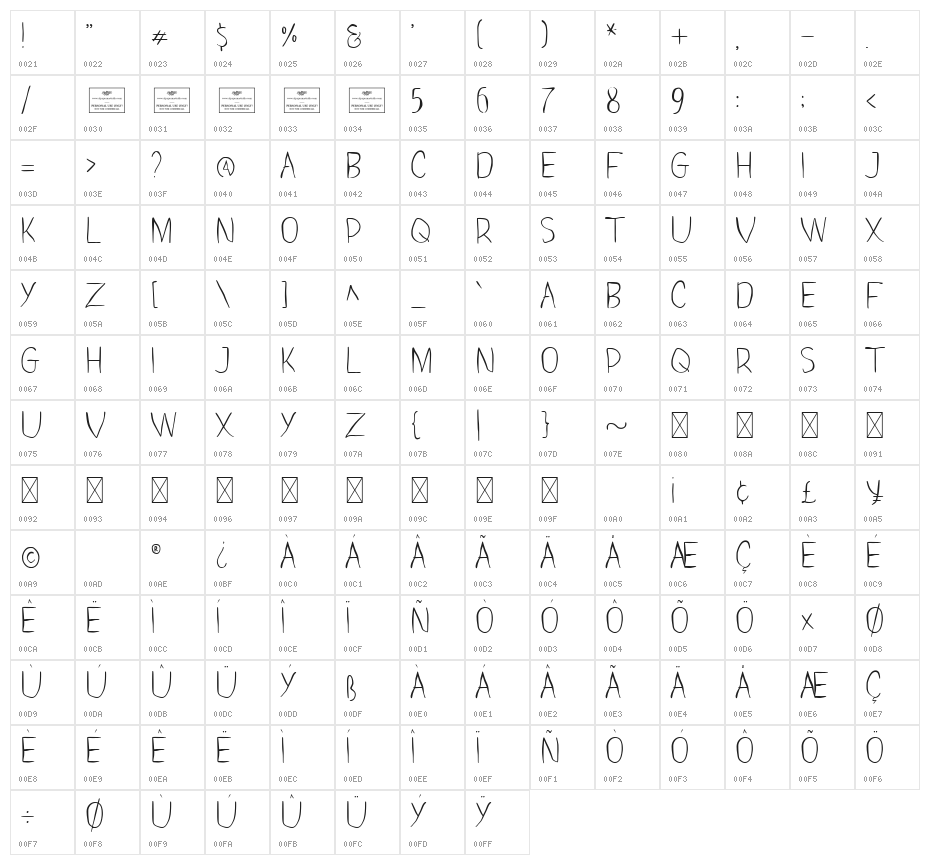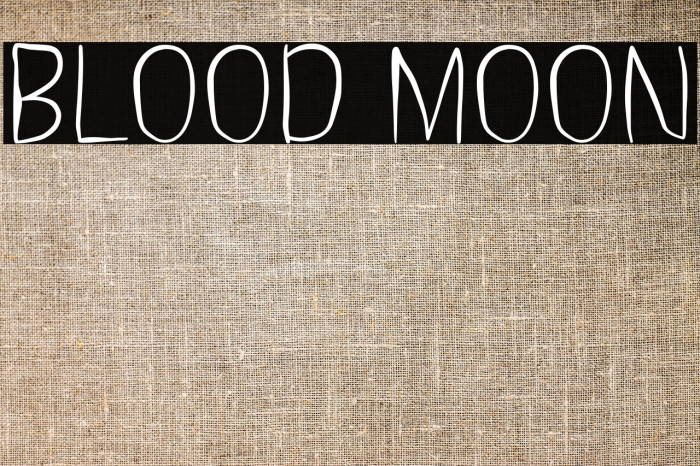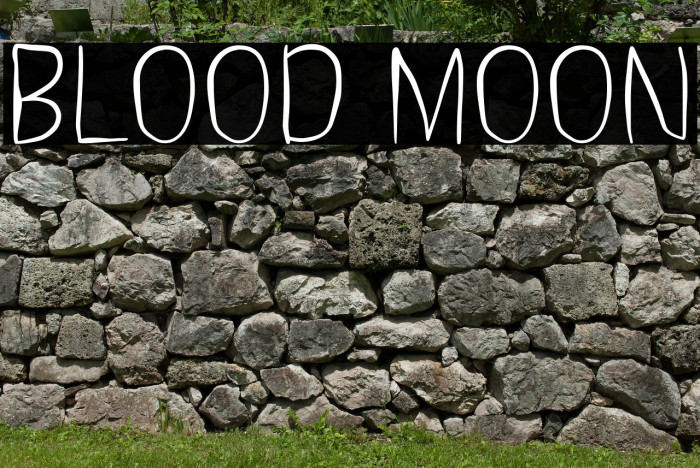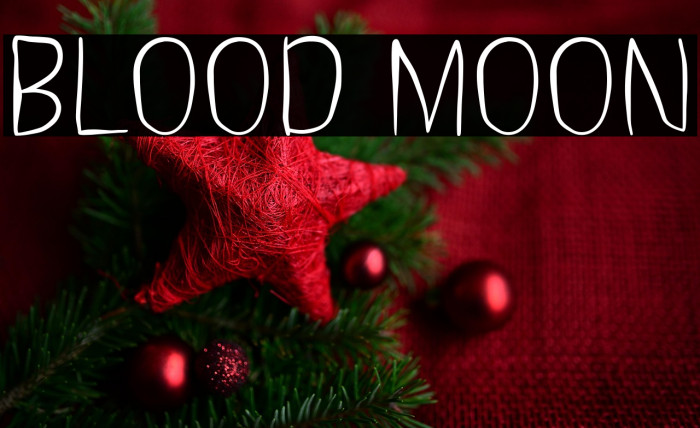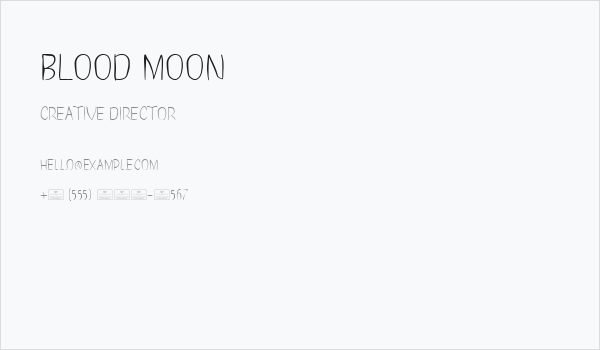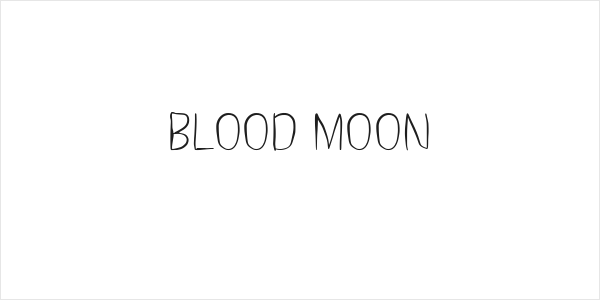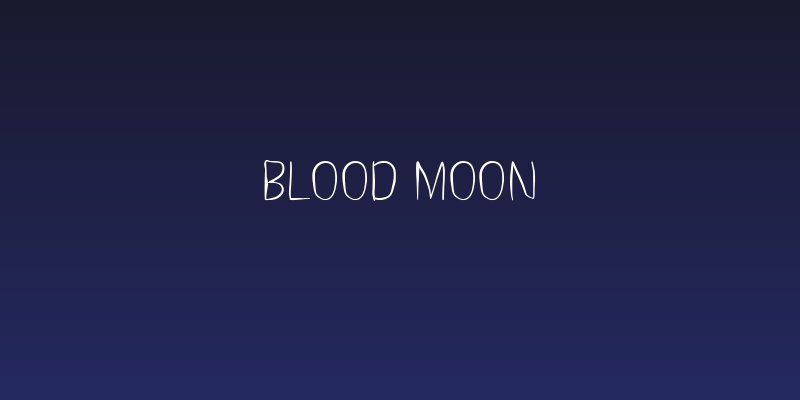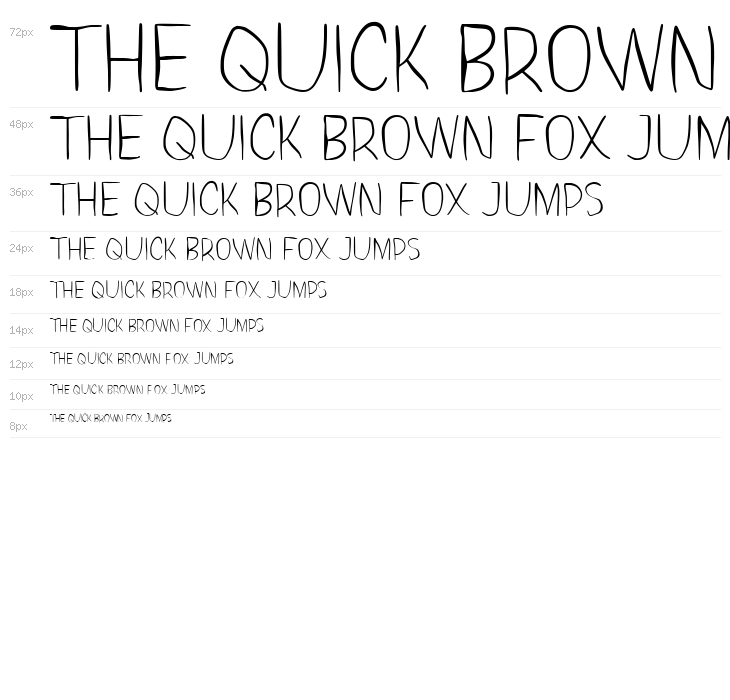
Blood Moon Font
Blood Moon Description
This font features a handwritten style with a playful and slightly irregular appearance. The characters are tall and slender, with a casual and informal feel. The strokes are uneven, adding to the hand-drawn aesthetic. The uppercase and lowercase letters maintain a consistent style, while the numbers and special characters complement the overall design. This font is suitable for projects that require a personal touch or a creative flair.
| Overall Style | Casual, Creative |
| Use Case | Headlines, Informal text, Creative projects |
| Proposed Projects | Ideal for greeting cards, invitations, personal blogs, and creative branding projects. |